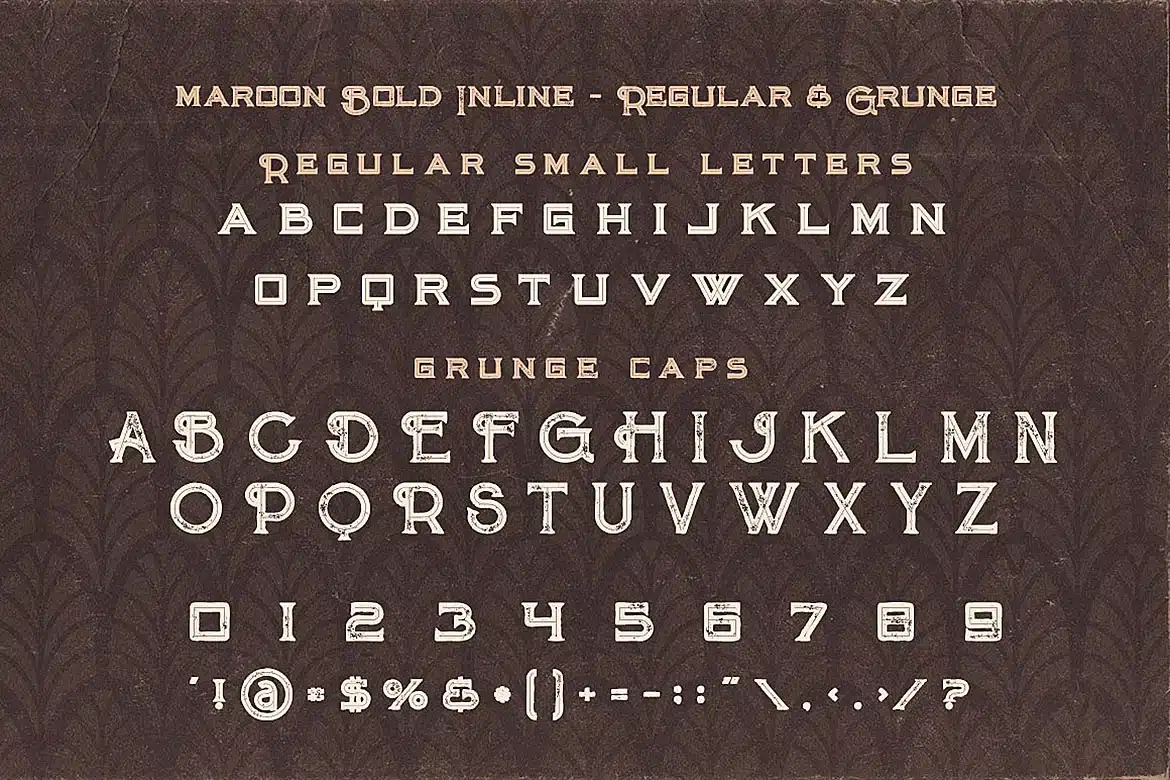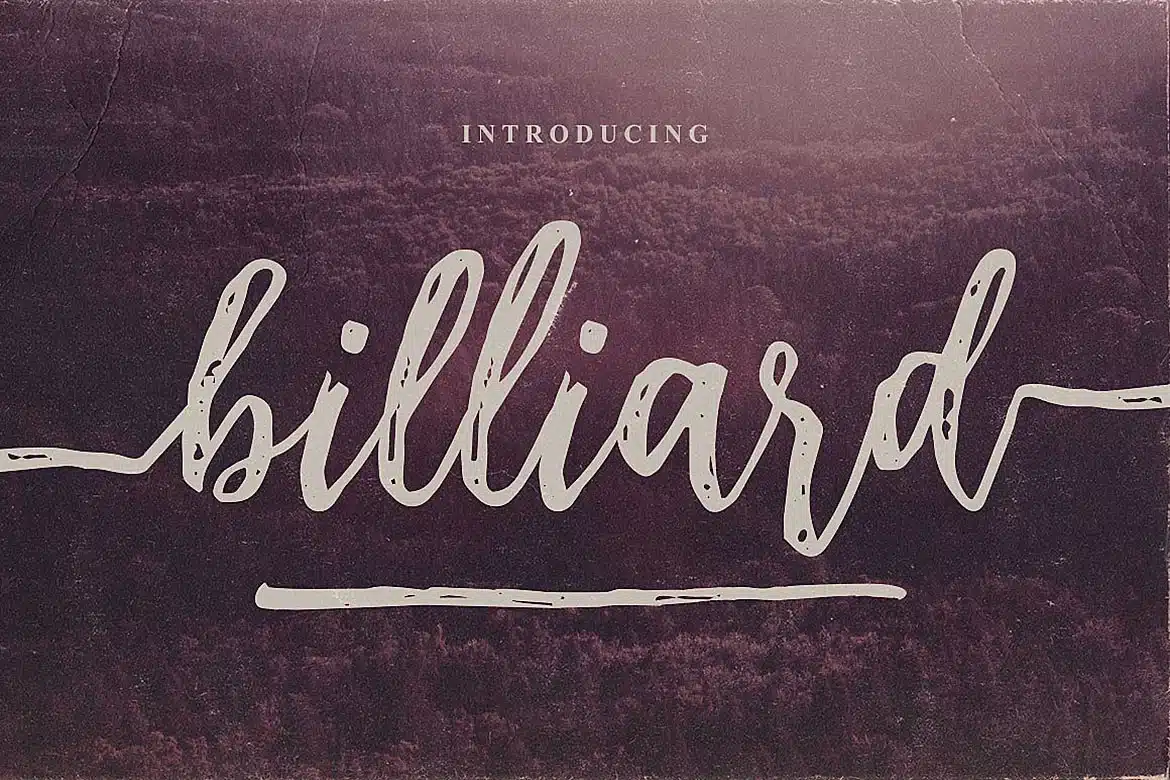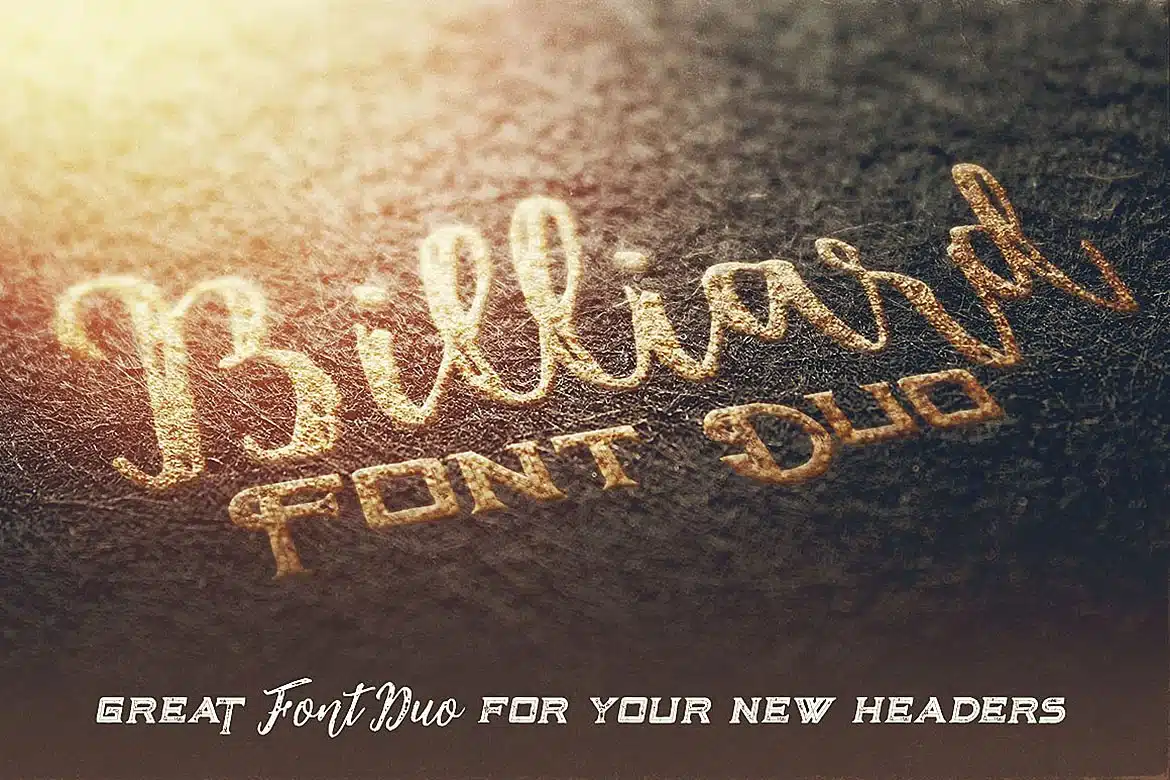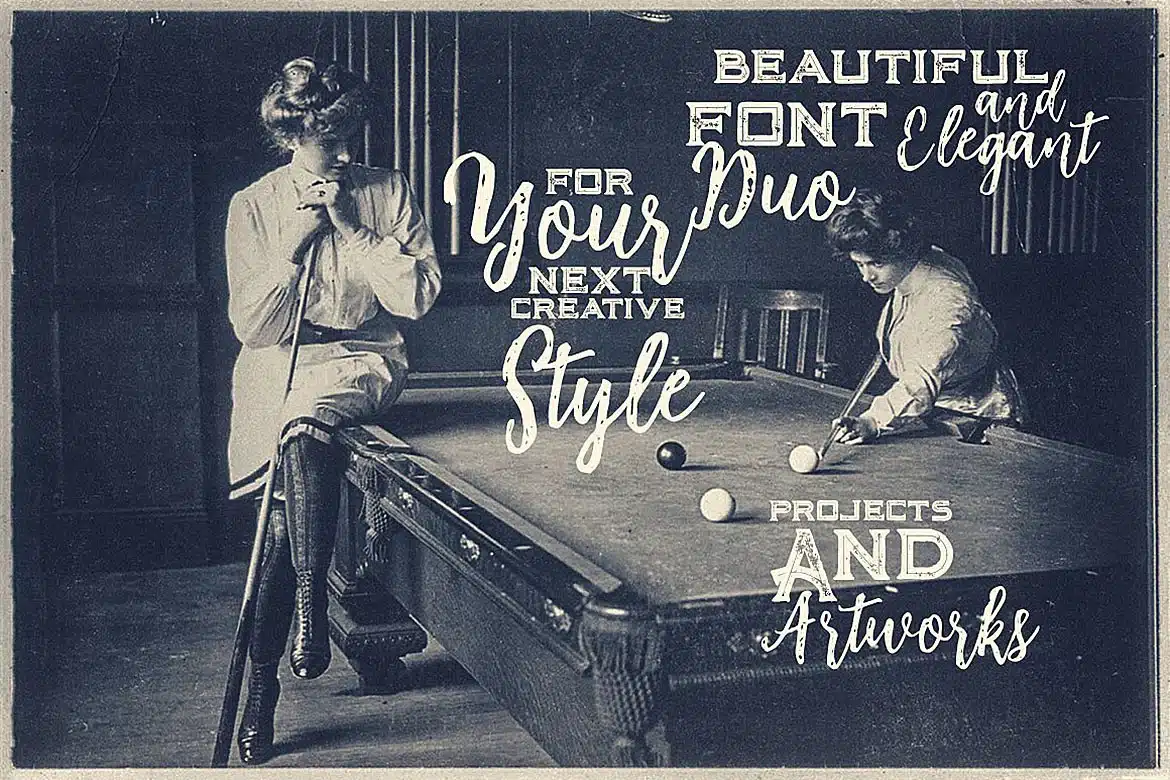
Billiard Font Duo
Cool retro or vintage style font duo for your new projects. First font is handdrawn & unique style brush script font with multi language support and lot of stylistic alternates + swash font. Second font is bold inline display font with regular & grunge version (without multi language support).